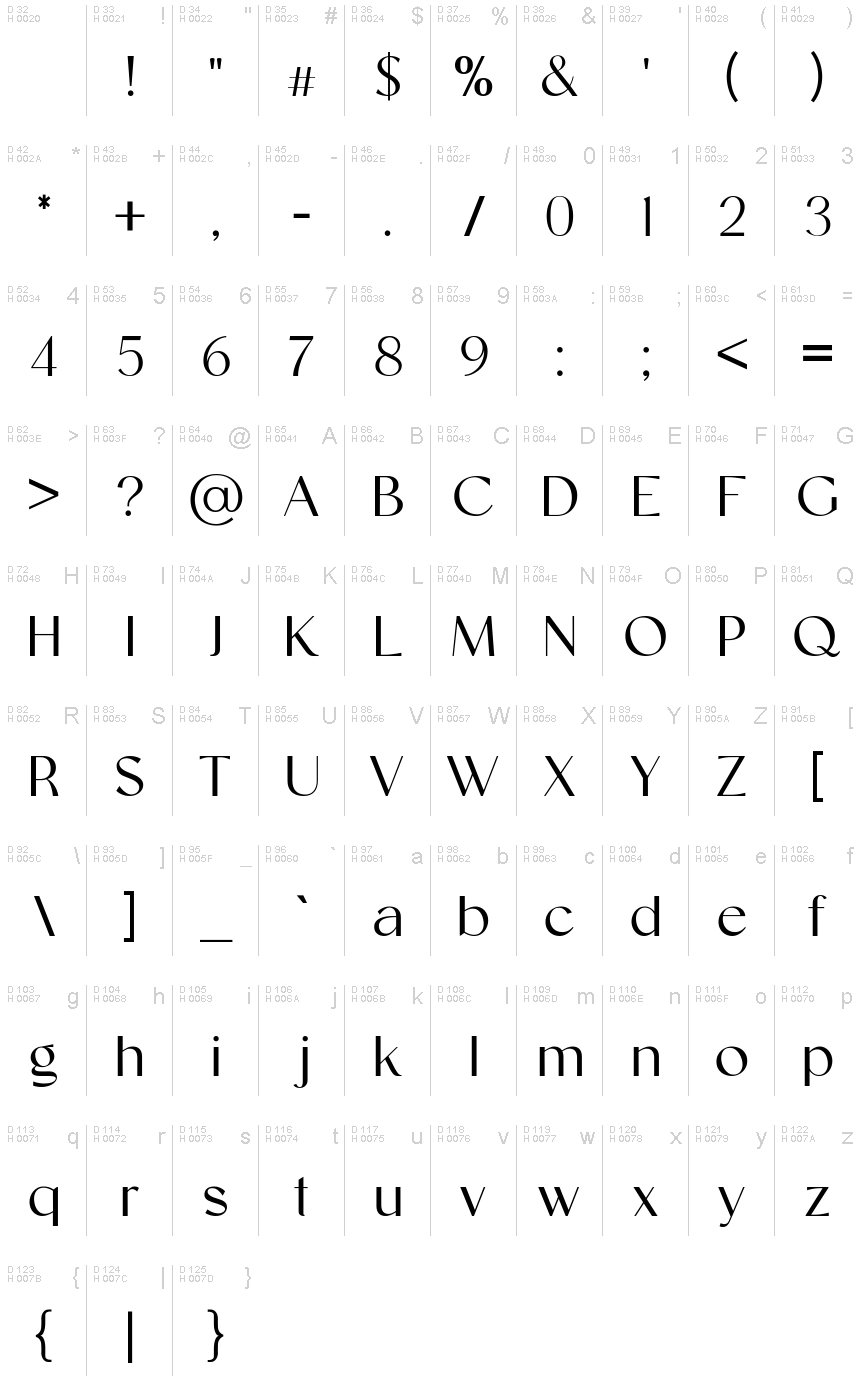
Mangiola Regular
Mangiola font, designed by UI Creative, is a sophisticated sans serif with elegant and refined curves. High contrast, modern sleek lines add to its beauty. Each character is created with extremely precise design choices resulting in a fantastic font that is exceptionally attractive. This free font has all it takes to become your next favorite typography asset.
Use Mangiola for branding, packaging, book covers, poster design or any other print project. Web projects will also succeed spectacularly when this typeface is used for headlines and big title paragraphs on social media posts too!